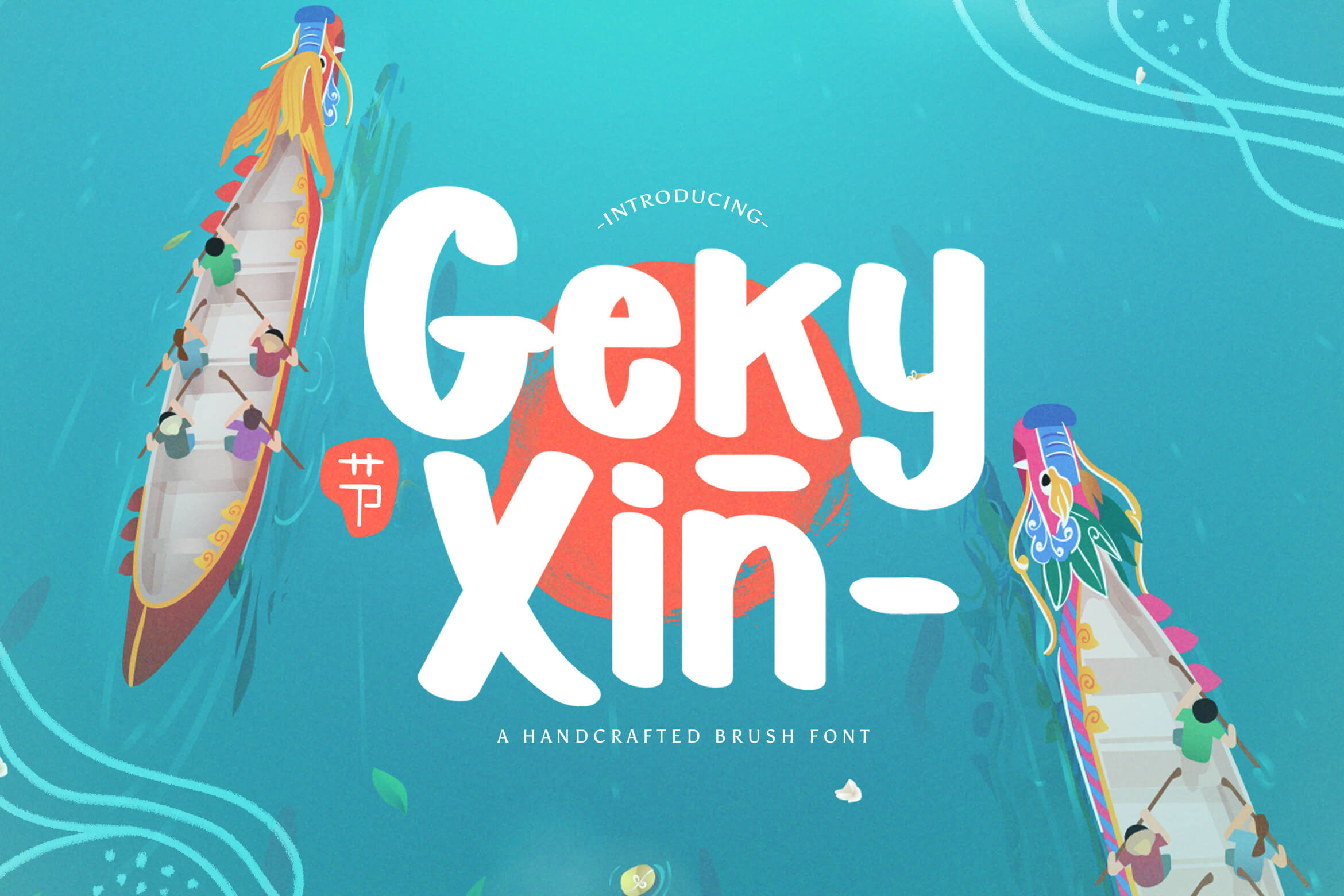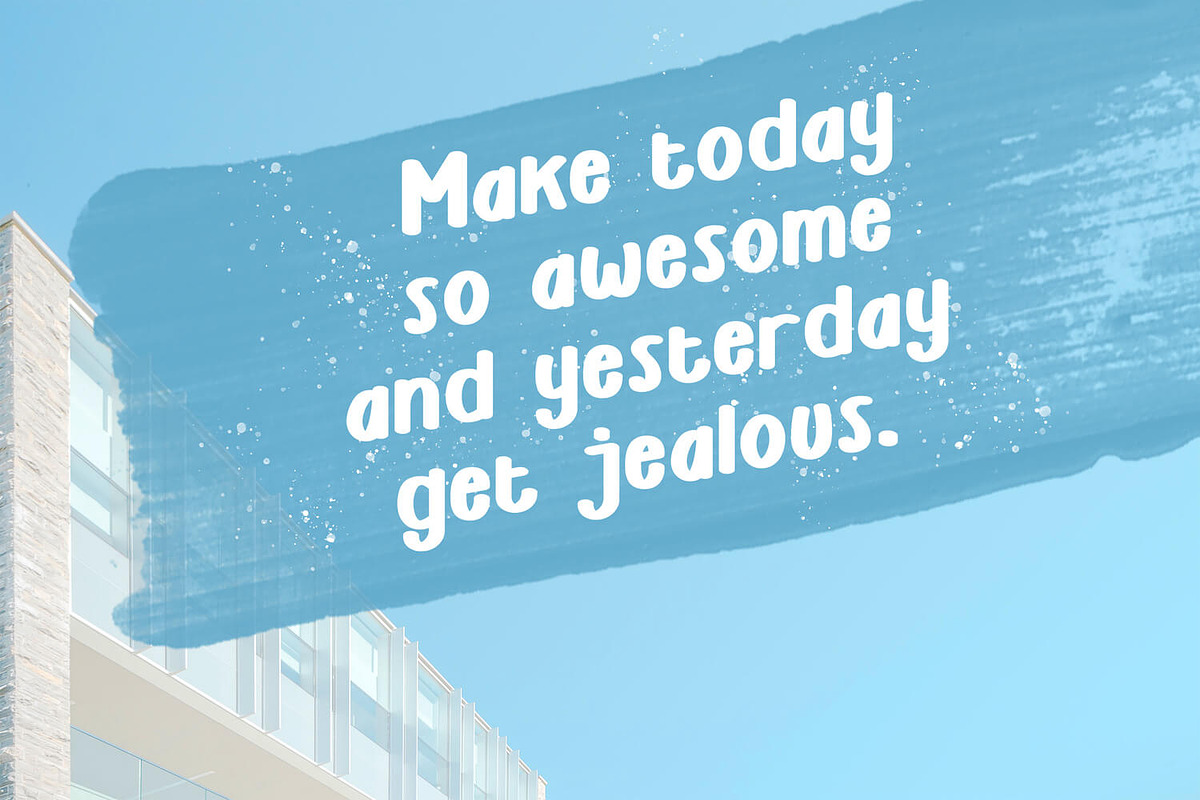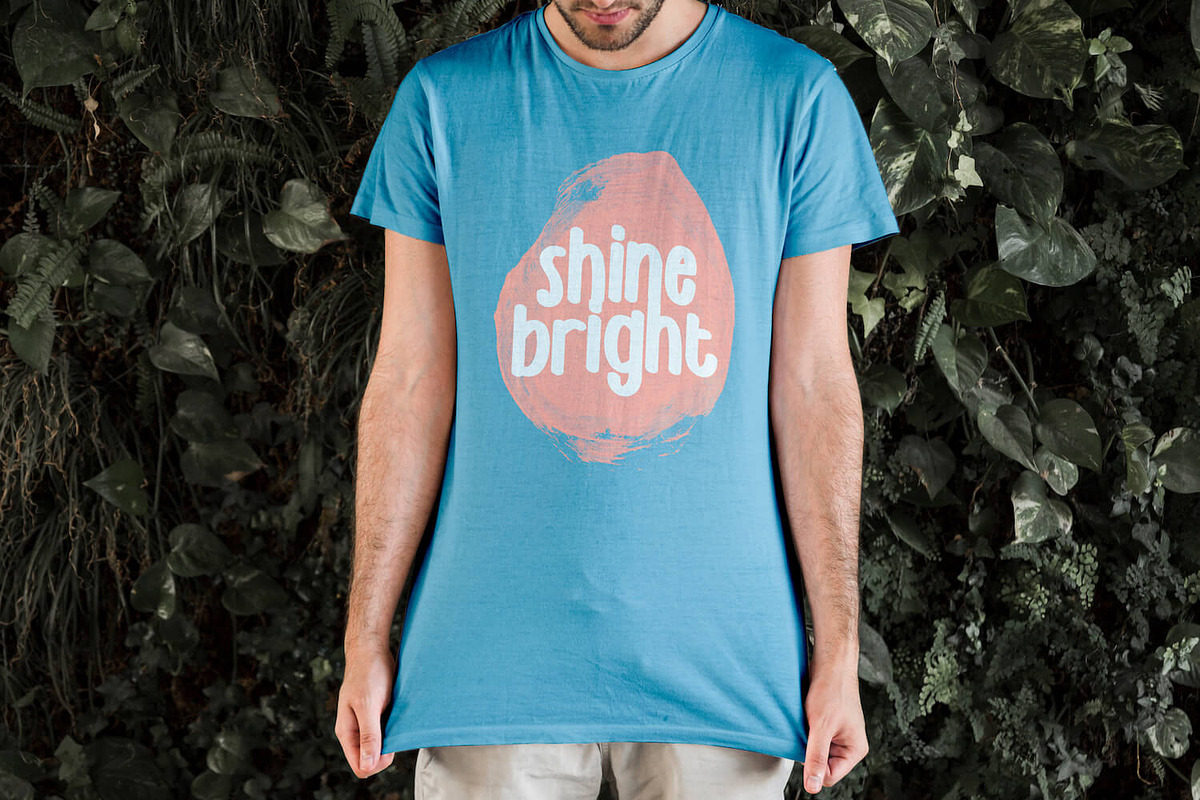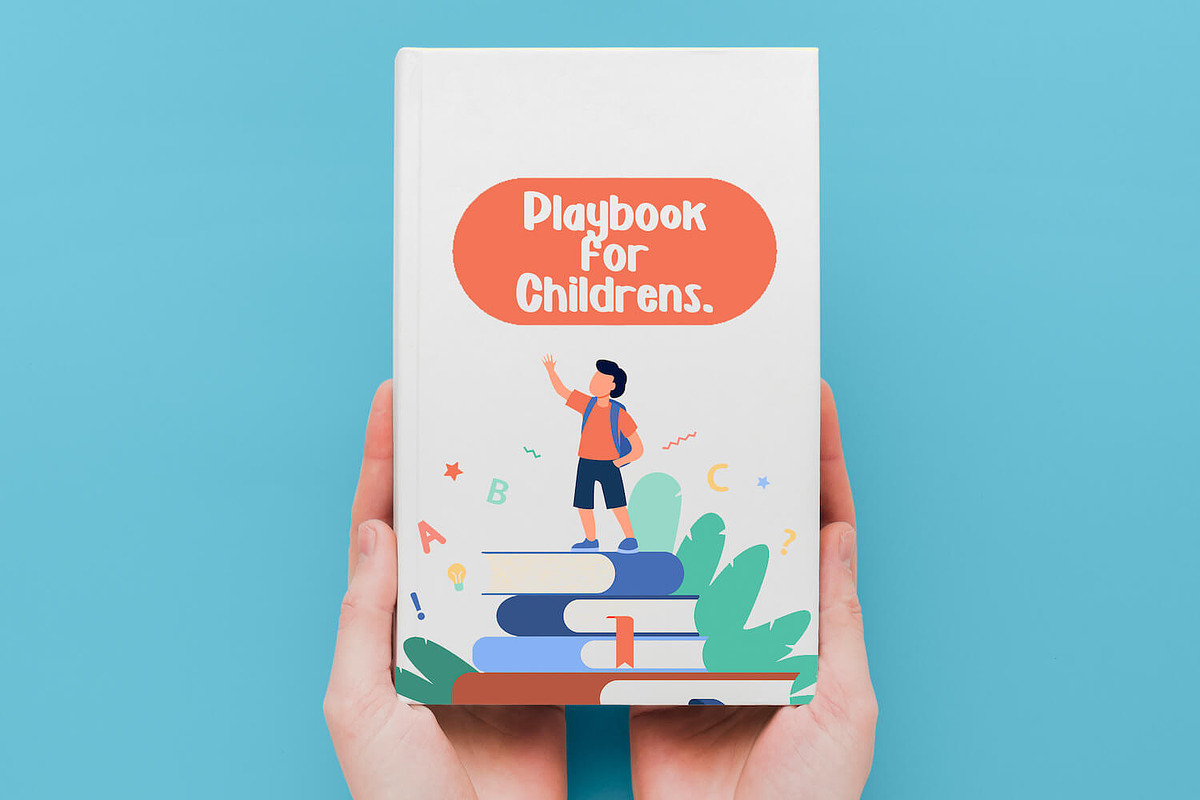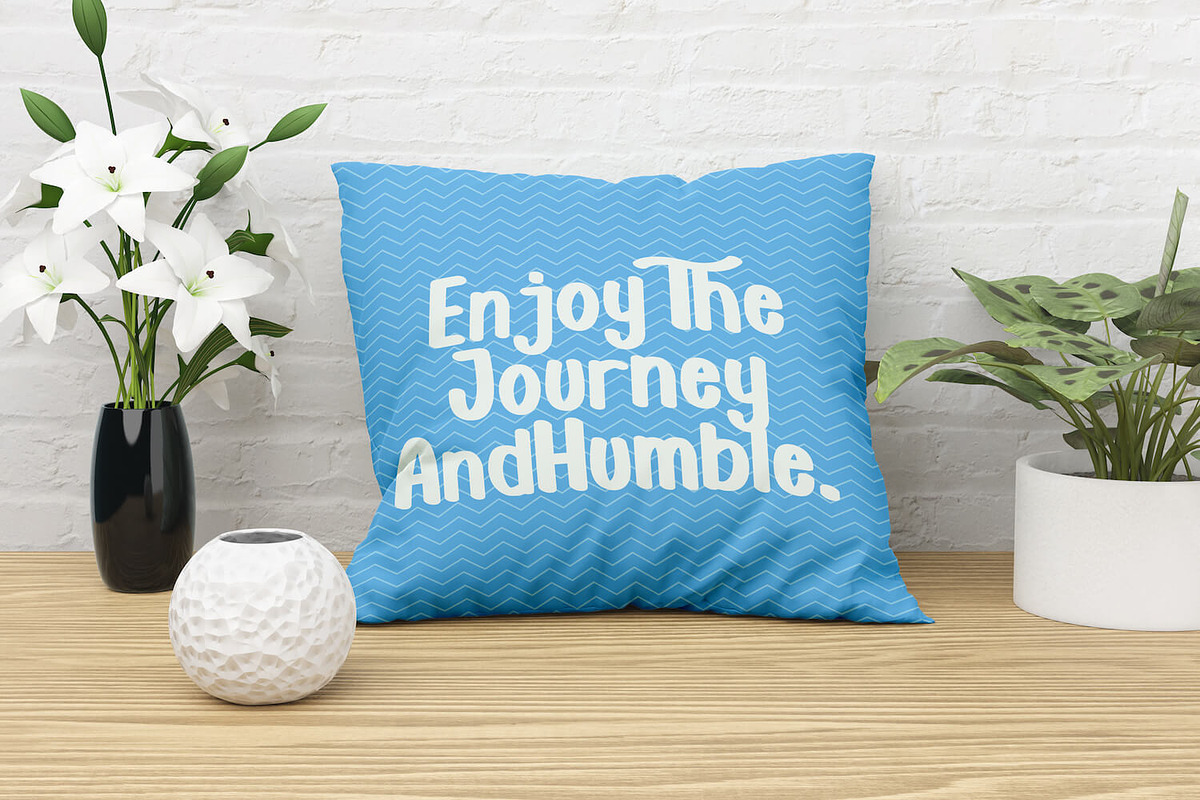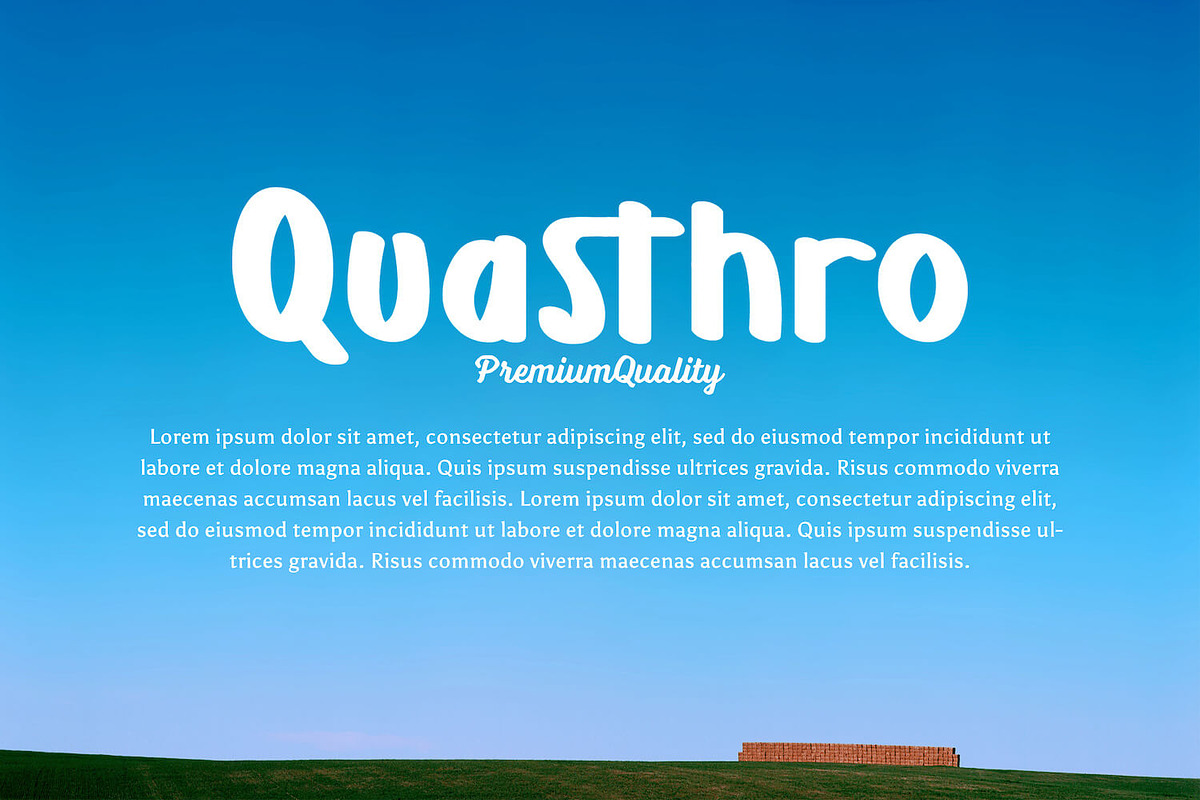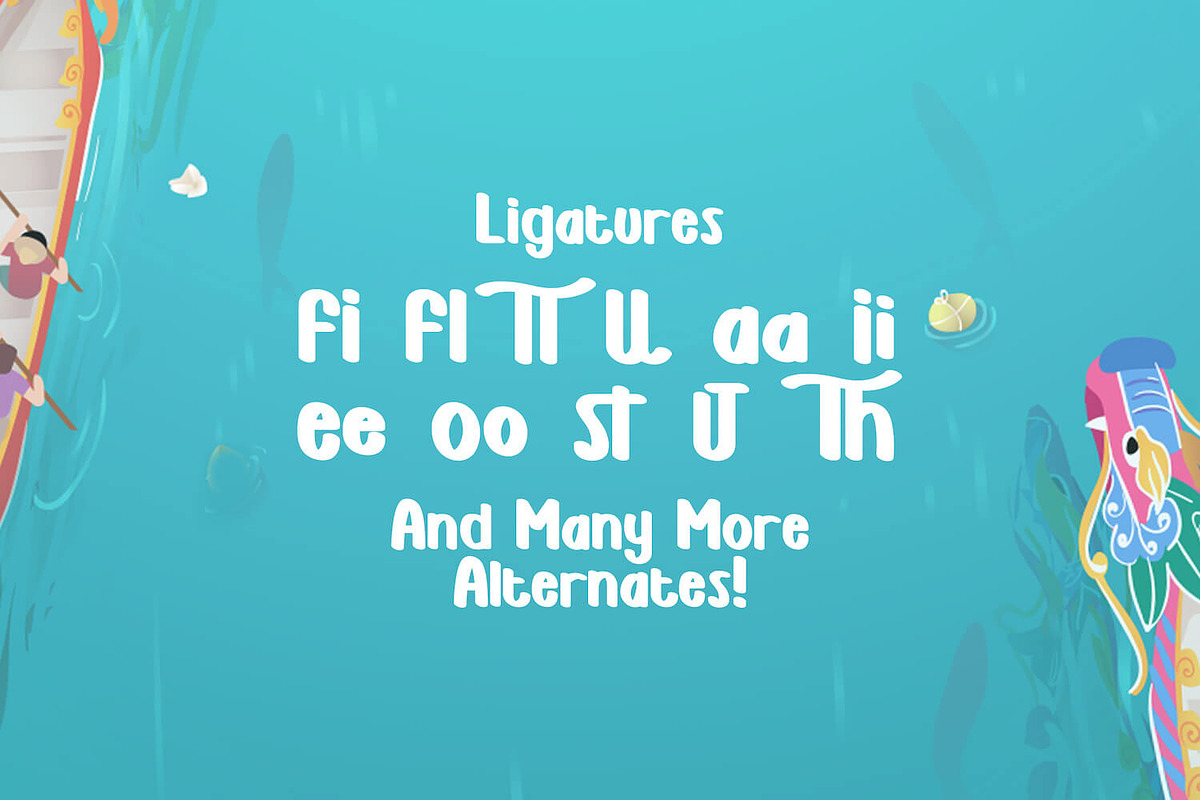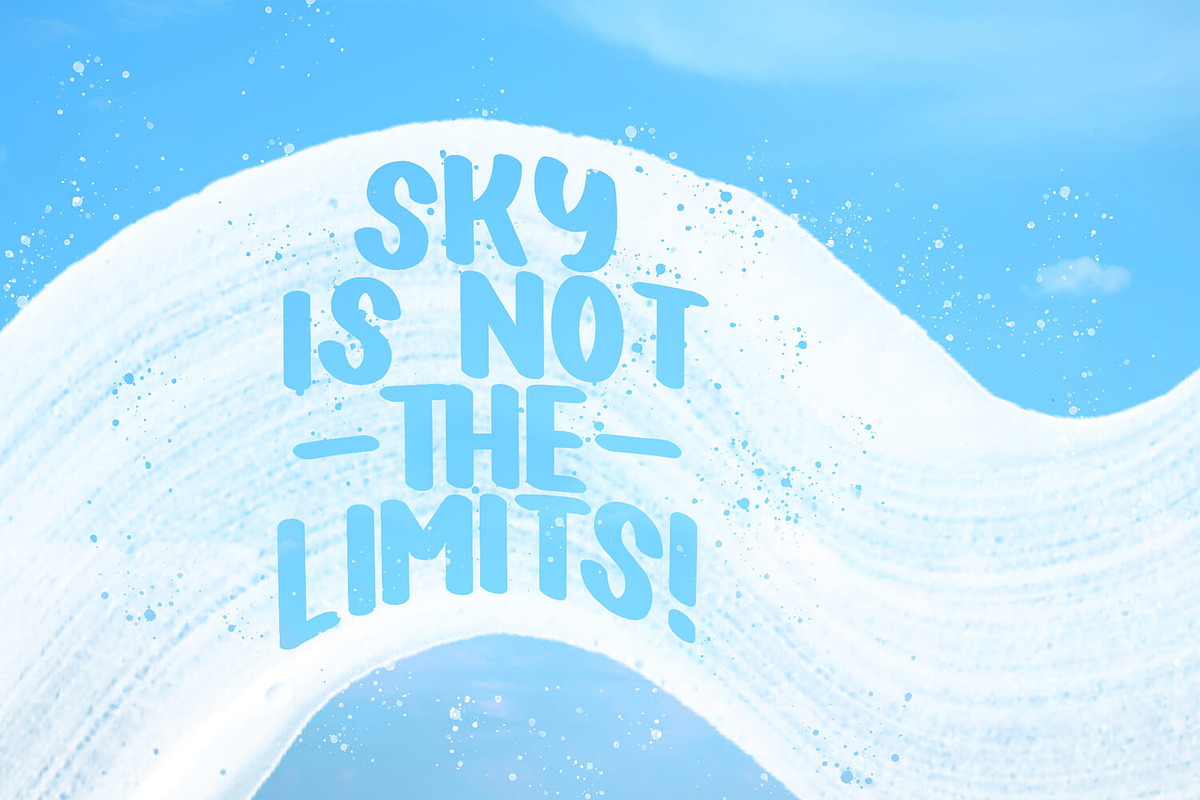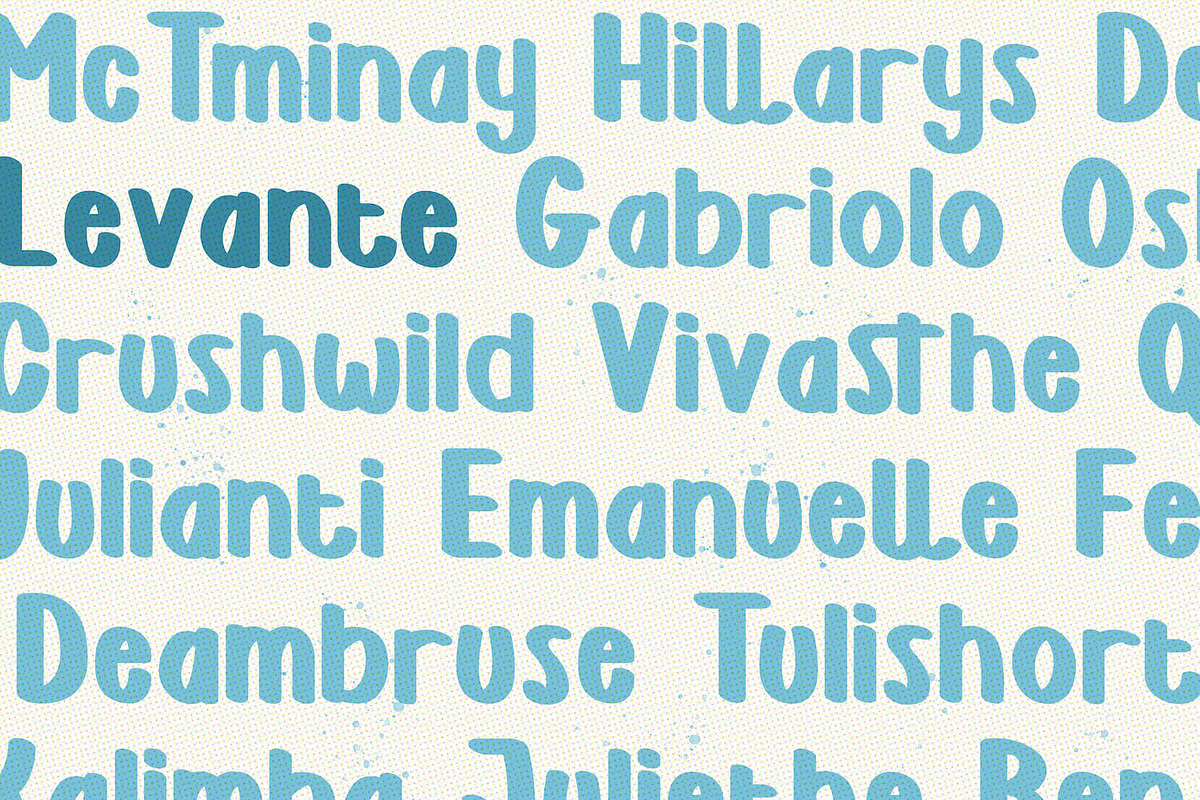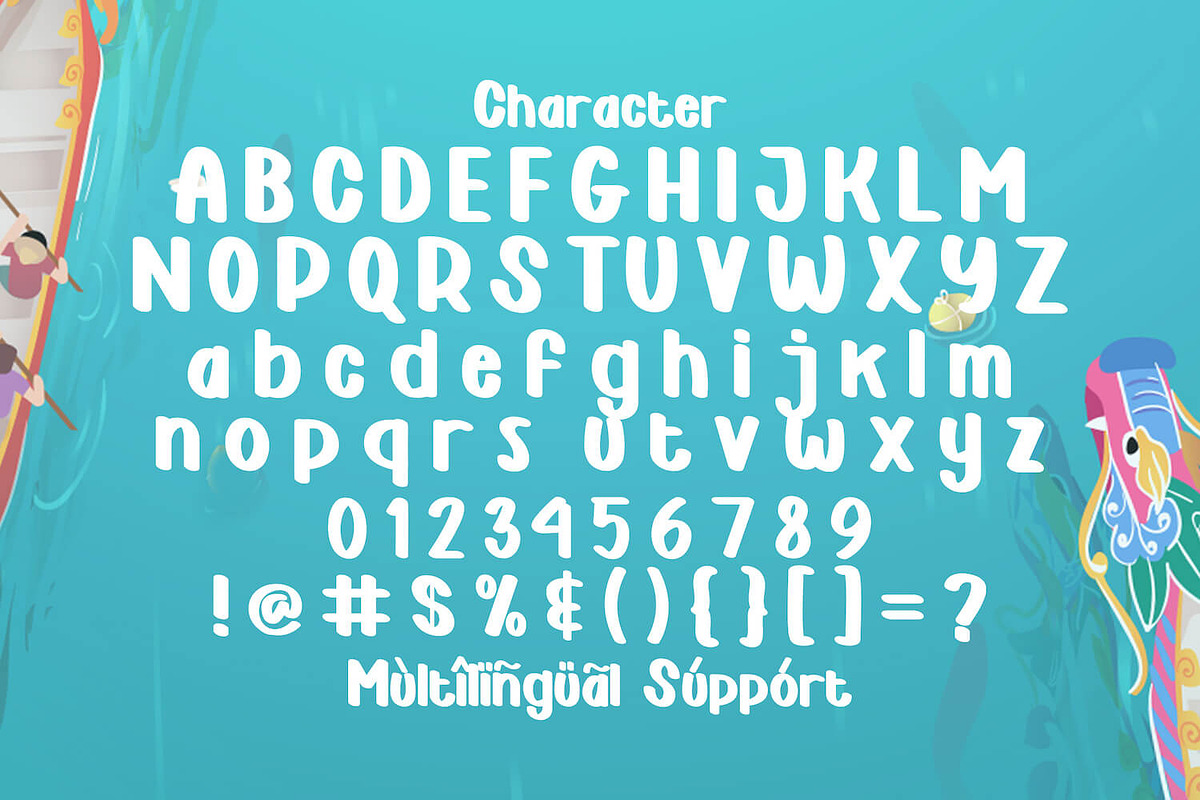
Geky Xin - Playful Display Font
Introducing Geky Xin - Playful Display Font
Geky Xin is a fun display font. Playful and fresh, this font will be a hit for each of your children or school projects!